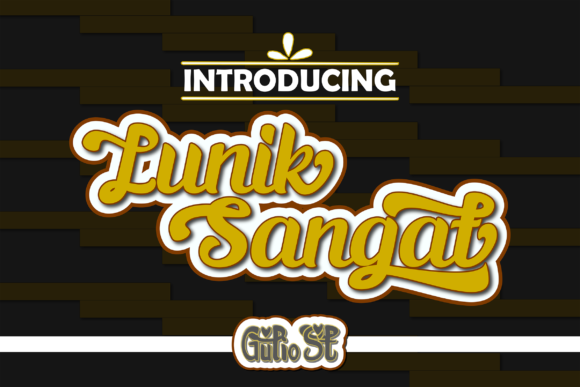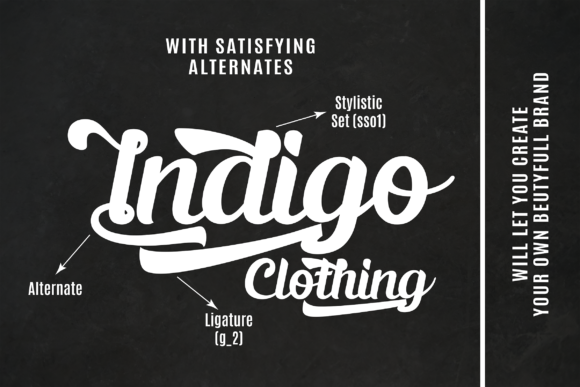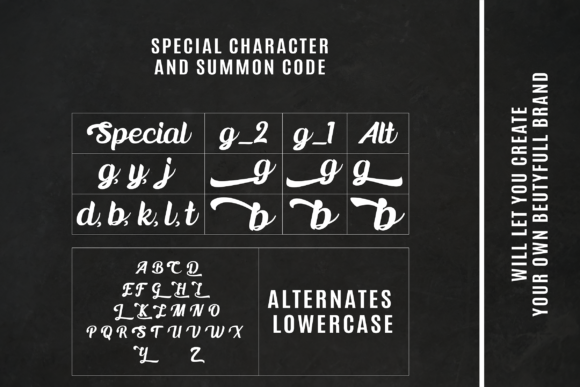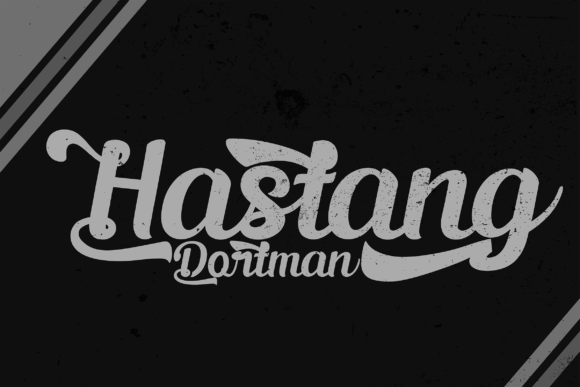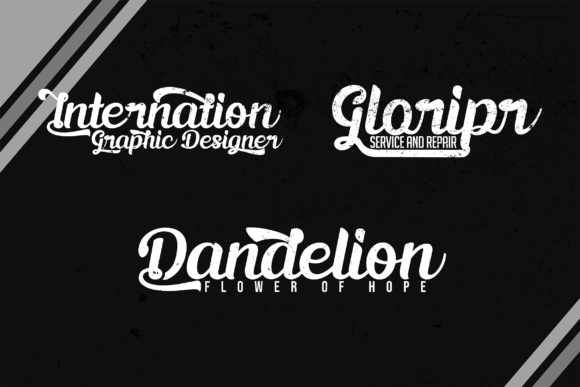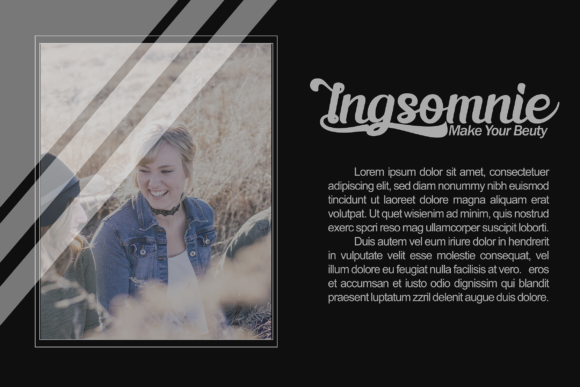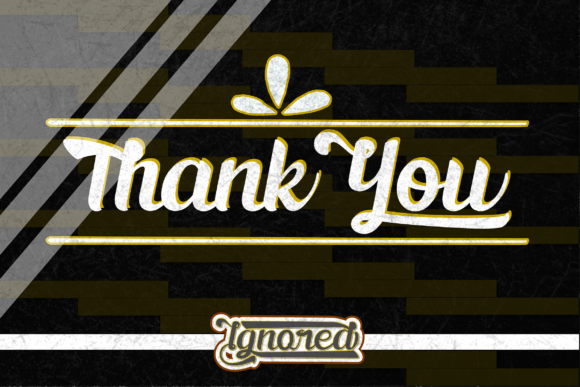
HomeScript FontsLunik Sangat Font Script Fonts Lunik Sangat Font FacebookTwitterPinterestWhatsApp Lunik Sangat Font Poster 2 Lunik Sangat Font Poster 3 Lunik Sangat Font Poster 4 Lunik Sangat Font Poster 5 Lunik Sangat Font Poster 6 Lunik Sangat Font Poster 7 About Lunik Sangat Font Lunik Sangat means big and soft, which applies to every single letter of this beautiful font. DOWNLOAD NOW People also explored Yellow Skies Hello Zoo Font Coffee Latte Font Women Font Shulton Font Boldo Boldie Font Thousand of Bees Font Rockath Font Lollipop Font 158 0 TagsLunik Sangat Font Previous articleKarmany FontNext articleBlackburn Font LEAVE A REPLY Cancel reply Comment: Please enter your comment! Name:* Please enter your name here Email:* You have entered an incorrect email address! Please enter your email address here Website: Save my name, email, and website in this browser for the next time I comment. Personal Use Free The Fourth Avenue Personal Use Free Read more about this font Barokah Personal Use Free Read more about this font Manhattan Personal Use Free Read more about this font Ardilla Font Personal Use Free Read more about this font BLOG To increase your work productivity, choose the most readable fonts. In today's fast-paced work environment, where digital communication and information consumption are integral to our daily routines, the choice of fonts can significantly impact... Best Fonts for YouTube Videos: Make Your Thumbnails Stand Out Using Fonts in Digital Marketing: Tips to Strengthen Your Brand Identity Free vs Paid Fonts: Why Investing in Premium Fonts Is Worth It